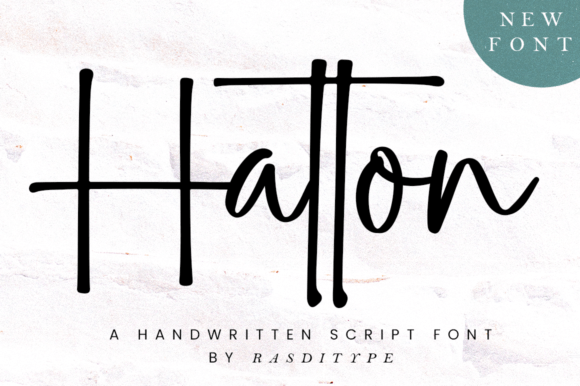
Looking for the perfect font to enhance your creative projects? Look no further than Hatton Font, the ultimate choice for craft beer enthusiasts and designers alike. This stunning script font is the brainchild of RasdiType, one of the leading names in the font design industry.
Crafted with utmost care, Hatton Font boasts a unique and eye-catching style that's perfect for a wide range of applications. Whether you're designing logos, wedding stationery, photography watermarks, or modern websites, this font is sure to elevate your project to the next level.
What sets Hatton Font apart from the competition is its timeless appeal. Unlike other fonts that quickly become dated, this font is designed to stand the test of time. You'll fall in love with its distinctive style and use it for years to come.